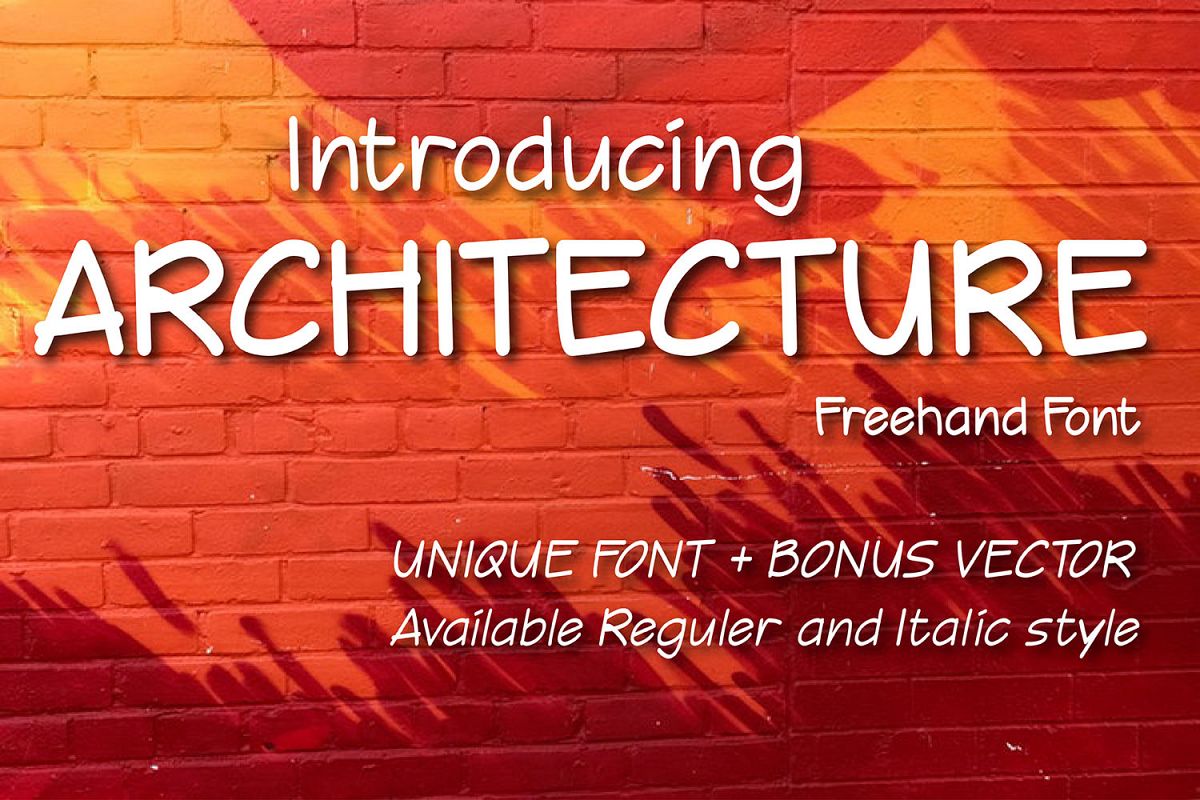
Architecture Freehand font
Architecture is a beautifully simple freehand font. This friendly and clean sans serif handwritten font is perfect for a ton of project types given its legibility and monoline structure.